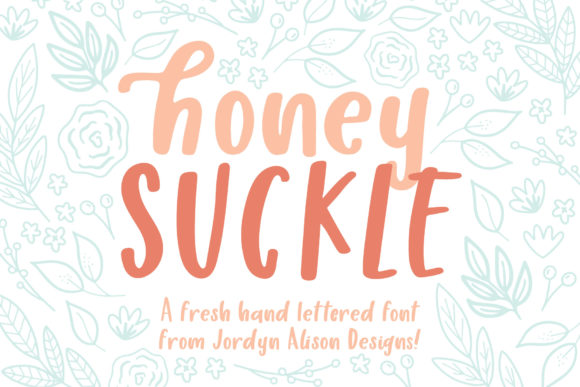
Journey into the world of Honey Suckle Font, a captivating script typeface created by jordynalisondesigns. This extraordinary font exudes a refreshing and playful charm, poised to transform your creative endeavors into captivating masterpieces.
Honey Suckle's delicate strokes and elegant curves evoke a sense of lightness and romance, adding a touch of warmth to every design project. Whether you're a seasoned designer seeking inspiration or a hobbyist eager to explore your creative side, this versatile font is your perfect companion.
Immerse yourself in a world of creative possibilities with Honey Suckle. Its graceful characters dance across the canvas, adding a touch of whimsy and charm to logos, branding designs, and social media posts. Bring your product packaging and invitations to life with its enchanting aura. Let Honey Suckle's allure captivate your audience, leaving a lasting impression.
But Honey Suckle's magic doesn't end there. It's a font that loves to play with numbers, transforming them into bold, eye-catching statements. Its unique design makes it the perfect choice for creating posters, flyers, and social media graphics that demand attention.
With Honey Suckle as your creative ally, you'll never run out of inspiration. Its timeless appeal and endless versatility make it a must-have for any designer's toolbox. Elevate your projects to new heights, evoke emotions, and leave an unforgettable mark on your audience.
Discover the enchanting world of Honey Suckle Font today and let your creativity soar. Dive into a world of endless possibilities, where every design project becomes a work of art.